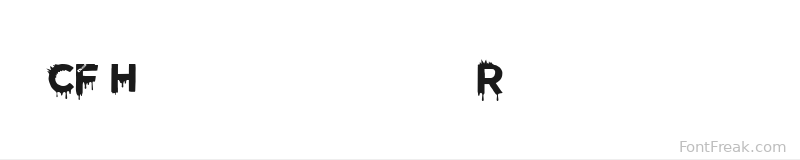
CF Halloween Regular
CF Halloween Regular is a decorative font designed by Cloutierfontes that captures the spirit of the Halloween season. This font falls into the category of display typefaces, making it ideal for eye-catching designs. The visual characteristics of CF Halloween Regular include a playful and slightly irregular stroke weight that adds a fun, whimsical touch. The letters are spaced generously, allowing for easy readability while maintaining a festive vibe. The font features unique decorative elements that evoke classic Halloween imagery, reminiscent of cobwebs and eerie shadows, enhancing its thematic appeal.
This font is perfect for various creative uses. For instance, it can be employed in Halloween-themed party invitations, setting an appropriate tone for spooky celebrations. Additionally, it works wonderfully for movie posters, particularly those in the horror or thriller genres, as it instantly conveys a sense of excitement and suspense. Small business owners can utilize CF Halloween Regular for promotional materials, such as flyers or social media graphics, to attract attention during the Halloween season. Furthermore, this typeface is an excellent choice for children’s books or educational materials focused on Halloween, offering a playful yet legible option.
Target audiences for CF Halloween Regular include graphic designers seeking to add a distinctive flair to their projects, small business owners wanting to create engaging promotional content, and content creators looking to enhance their Halloween-themed visuals.
This font stands out due to its unique blend of creativity and readability, making it a versatile choice for anyone looking to celebrate the Halloween spirit through design. With its free licensing, the CF Halloween Regular font free download opens up exciting opportunities for creative expression during this festive time of year.